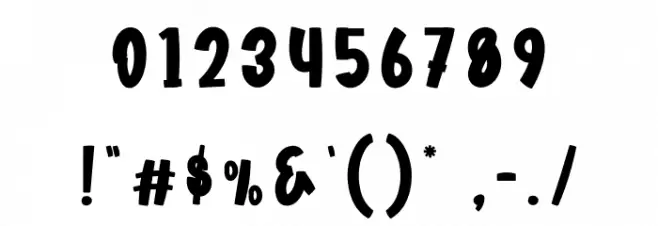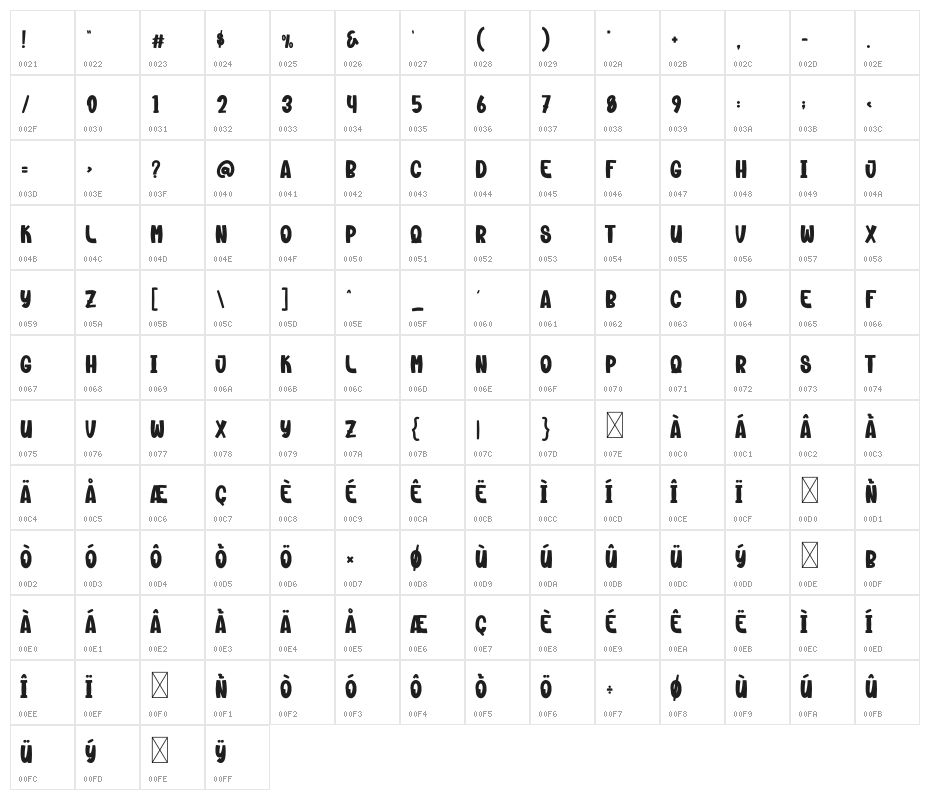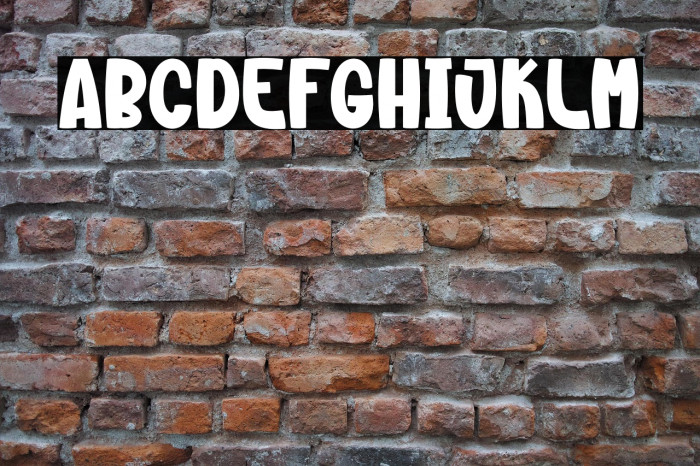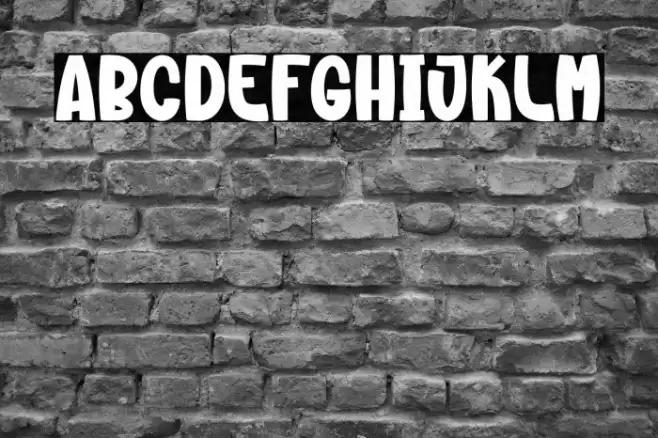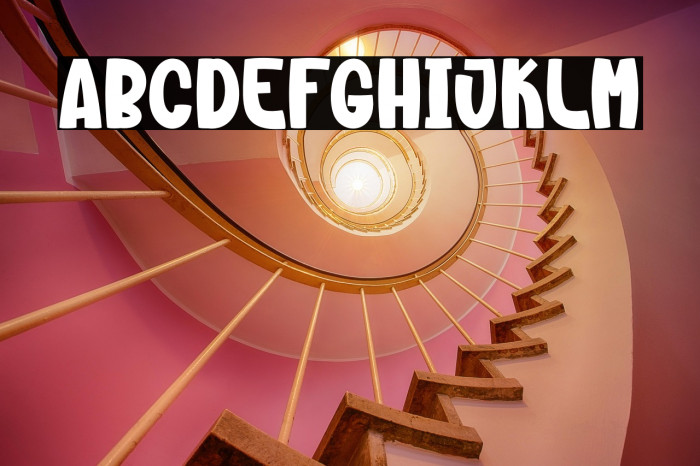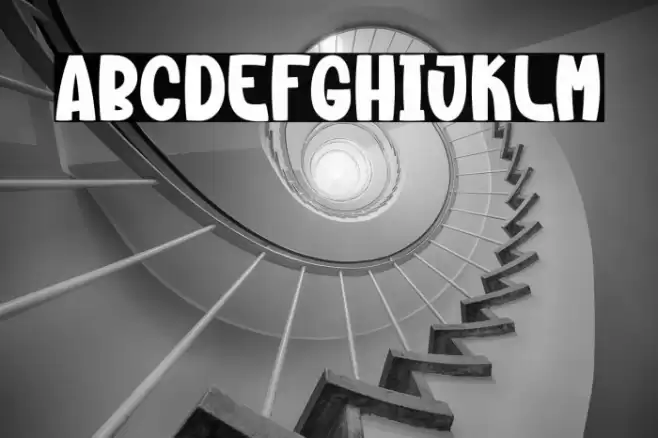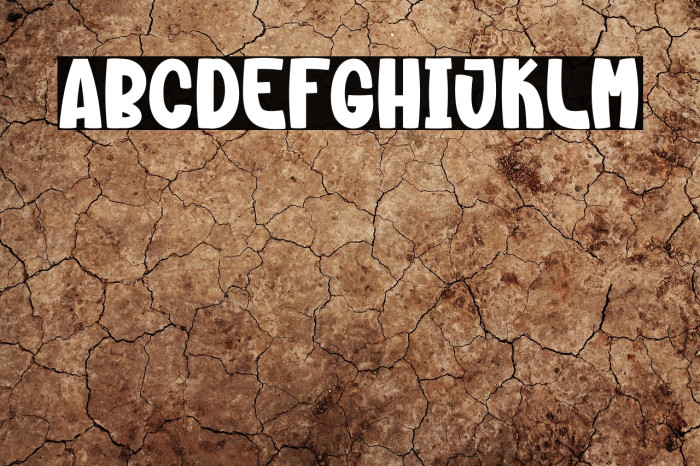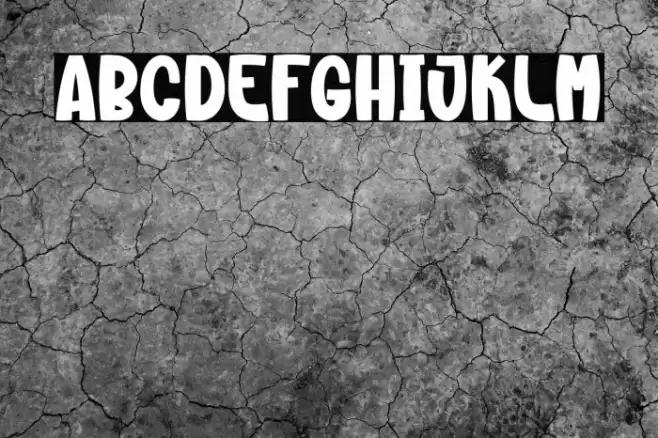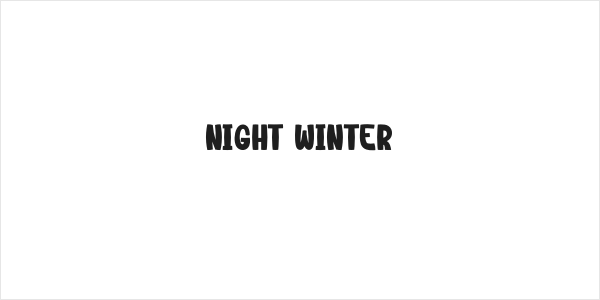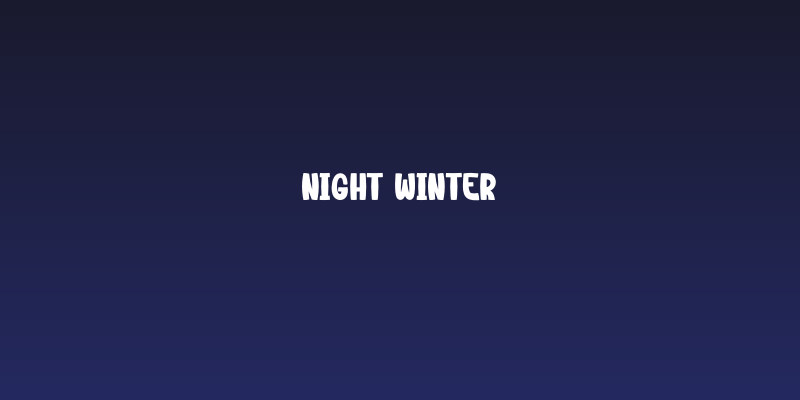
Night Winter
This font features a bold and playful design with a strong presence. The characters are thick and rounded, giving them a friendly and approachable appearance. The strokes are consistent in weight, providing a uniform look across all characters. The style is reminiscent of hand-drawn or cartoon lettering, making it ideal for projects that require a fun and informal touch. The numbers and special characters maintain the same boldness and playful style, ensuring consistency throughout any text. The font's design is suitable for capturing attention and conveying a sense of whimsy and creativity.
A bold, playful font with rounded characters and a hand-drawn feel.
- Proposed Projects: Ideal for children's books, playful branding, posters, and event invitations.
- Overall Style: Playful, Fun, Cartoonish
- Use Case: Headlines, Logos, Posters